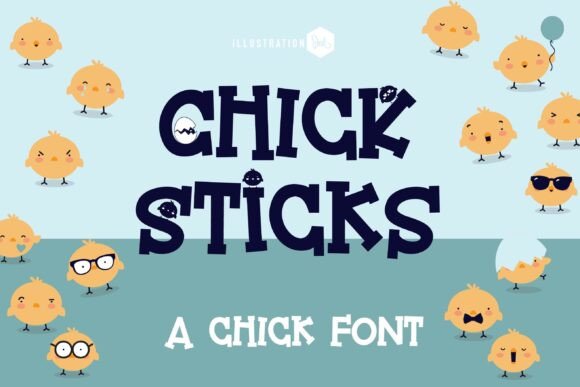
Introducing Chick Sticks Font: A Whimsical Serif with Adorable Chicks
In the world of typography, fonts play a crucial role in conveying the tone and personality of a message. Among the numerous font styles available, hand-crafted fonts have gained immense popularity for their unique and personalized touch. One such font that has caught the attention of designers and typography enthusiasts is the Chick Sticks Font. This article will delve into the world of Chick Sticks Font, exploring its features, uses, and the art of hand-crafted typography.
What is Chick Sticks Font?
Chick Sticks Font is a whimsical serif font that boasts adorable chicks on its uppercase letters. This hand-crafted font is designed to resemble handwritten text, giving it a personal and informal touch. The font’s playful and charming design makes it perfect for creative projects, such as invitations, greeting cards, and other paper goods.
The Art of Hand-Crafted Fonts
A hand-crafted font is a typeface that is designed to mimic the look and feel of handwritten text. These fonts are often created using traditional techniques, such as calligraphy or lettering, and are then digitized for use on digital platforms. Hand-crafted fonts can range from formal and elegant to informal and playful, making them suitable for a wide range of applications.
Handwritten fonts, like Chick Sticks Font, have become increasingly popular in recent years due to their unique and personalized touch. They can add a touch of warmth and personality to a message, making it more engaging and memorable.
Uses of Chick Sticks Font
Chick Sticks Font is a versatile typeface that can be used for various creative projects. Some of the most popular uses of this font include:
- Invitations: Chick Sticks Font is perfect for creating playful and charming invitations for special occasions, such as birthday parties, baby showers, and weddings.
- Greeting Cards: The font’s whimsical design makes it ideal for creating greeting cards for various occasions, including holidays, birthdays, and thank-you cards.
- Paper Goods: Chick Sticks Font can be used to create a range of paper goods, such as stickers, labels, and gift tags.
- Digital Platforms: The font can also be used on digital platforms, such as social media, blogs, and websites, to add a touch of personality and whimsy.
Benefits of Hand-Crafted Fonts
Hand-crafted fonts, like Chick Sticks Font, offer several benefits, including:
- Unique and Personalized: Hand-crafted fonts offer a unique and personalized touch, making them stand out from more traditional fonts.
- Emotional Connection: Handwritten fonts can create an emotional connection with the reader, making the message more relatable and memorable.
- Flexibility: Hand-crafted fonts can be used for a wide range of applications, from formal to informal projects.
Tips for Using Chick Sticks Font
Here are some tips for using Chick Sticks Font effectively:
- Use it for Headings: Chick Sticks Font is perfect for headings and titles, where its playful design can add a touch of personality.
- Pair it with Other Fonts: The font can be paired with other fonts to create a unique and visually appealing combination.
- Experiment with Colors: Chick Sticks Font can be used with a range of colors to create a bold and eye-catching design.
In conclusion, Chick Sticks Font is a whimsical serif font that offers a unique and personalized touch. Its hand-crafted design makes it perfect for creative projects, such as invitations, greeting cards, and paper goods. By understanding the art of hand-crafted typography and the benefits of using handwritten fonts, designers and typography enthusiasts can unlock the full potential of Chick Sticks Font and create stunning designs that capture the imagination.